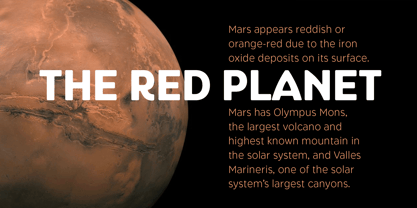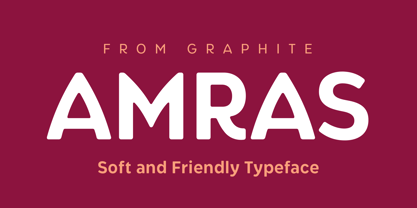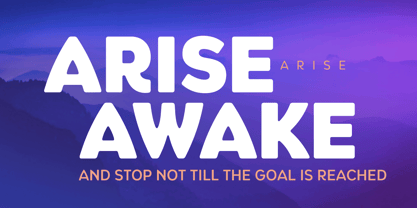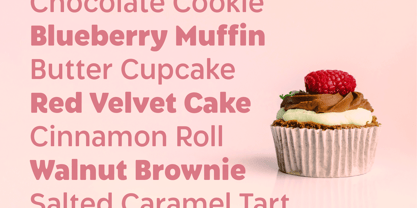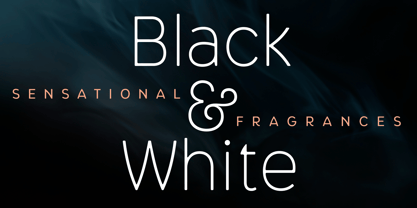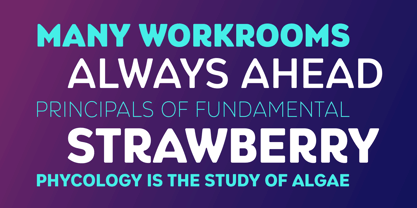
Amras
by Graphite
The Amras Font Family was designed by Deepak Dogra and published by Graphite. Amras contains 8 styles and family package options.
Say hello to Amras—where clean design meets soft edges and rounded contours. This modern, soft hearted sans serif brings warmth and approachability to any project, from playful branding to user-friendly interfaces. Whether you're crafting logos, packaging, branding or digital content, Amras adds just the right touch of charm and clarity.
A contemporary font family of eight weights, Amras is designed to strike the perfect balance between professionalism and playfulness. With its gently curved edges and geometric structure, it offers exceptional legibility while maintaining a friendly, inviting tone.
Key features:
Rounded terminals for a soft, modern aesthetic.
Clean, minimalist letterforms suitable for print and digital.
Versatile weight range for bold headlines and subtle body text.
Supports multilingual characters and OpenType features like oldstyle figures.
Optimized for web, mobile, and high-resolution screens
Perfect for:
Branding & Logo Design
UI/UX Interfaces
Children’s Products
Food & Beverage Packaging
Social Media Graphics
Wellness and Lifestyle Brands